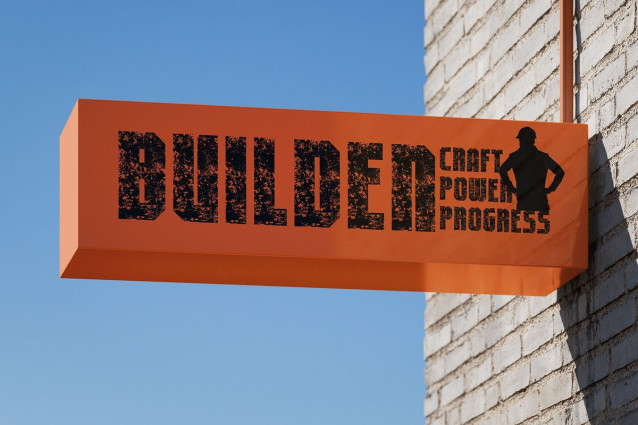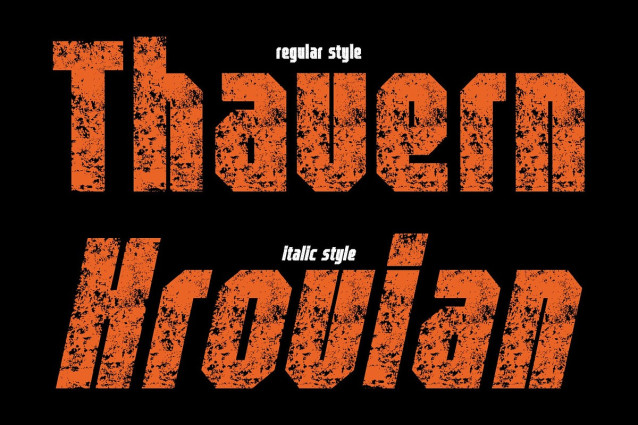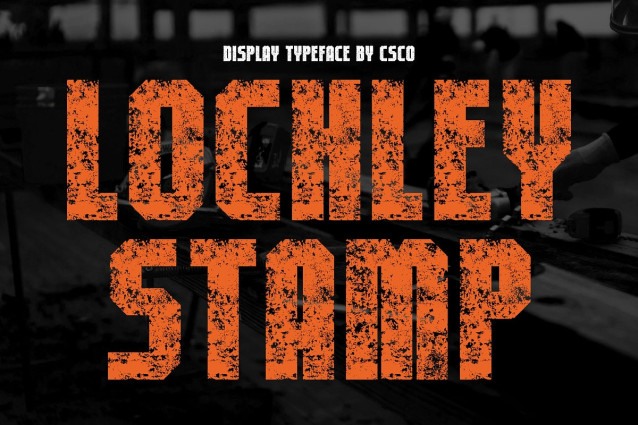
Lochley Stamp Font
Lochley Stamp Font – This is a sans serif font built on condensed, bold proportions that convey strength and structure. Its industrial aesthetic brings a masculine, technical edge, making it ideal for projects that need a commanding presence.
Stamp Texture for Authentic Character The stamp effect enriches the design with a rugged, handcrafted quality. This subtle imperfection enhances the industrial foundation, creating a vintage, worn-in charm that feels both authentic and expressive.
Industrial Meets Vintage Appeal Balancing sharp geometry with textured character, merges modern boldness with retro spirit. The result is a font that resonates with durability, heritage, and creative artistry.
Perfect for Editorials and Branding Whether used in editorials, retro-inspired branding, or vintage literary projects, adapts effortlessly. Its condensed form and textured surface make it a versatile choice for striking headlines, bold logos, and nostalgic design applications.